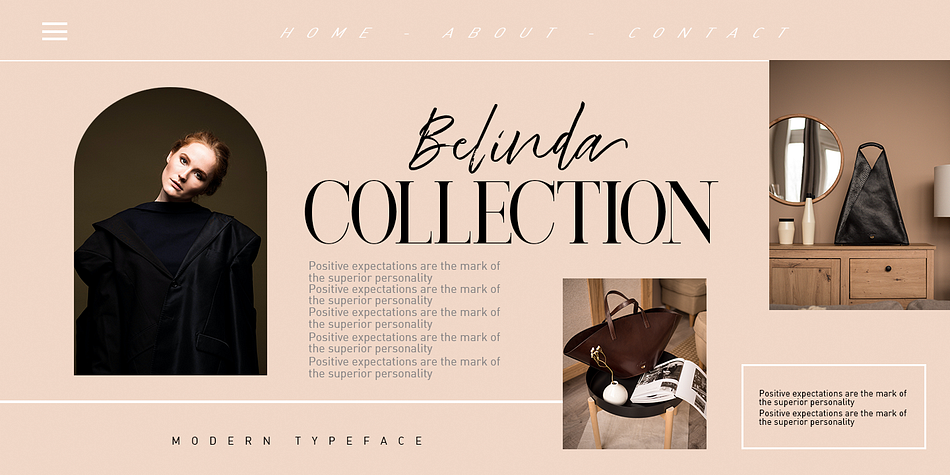
Homestay Brush
Homestay Brush is a modern calligraphy font family published by Area Type Studio.
Homestay Brush is a very interesting new brush font. This font family is perfect for branding projects, logos, product packaging, posters, invitations, greeting cards, news, blogs, and more.
The Homestay offers OpenType features, several ligatures and swashes, initial and terminal letters, and international support for most Western languages.